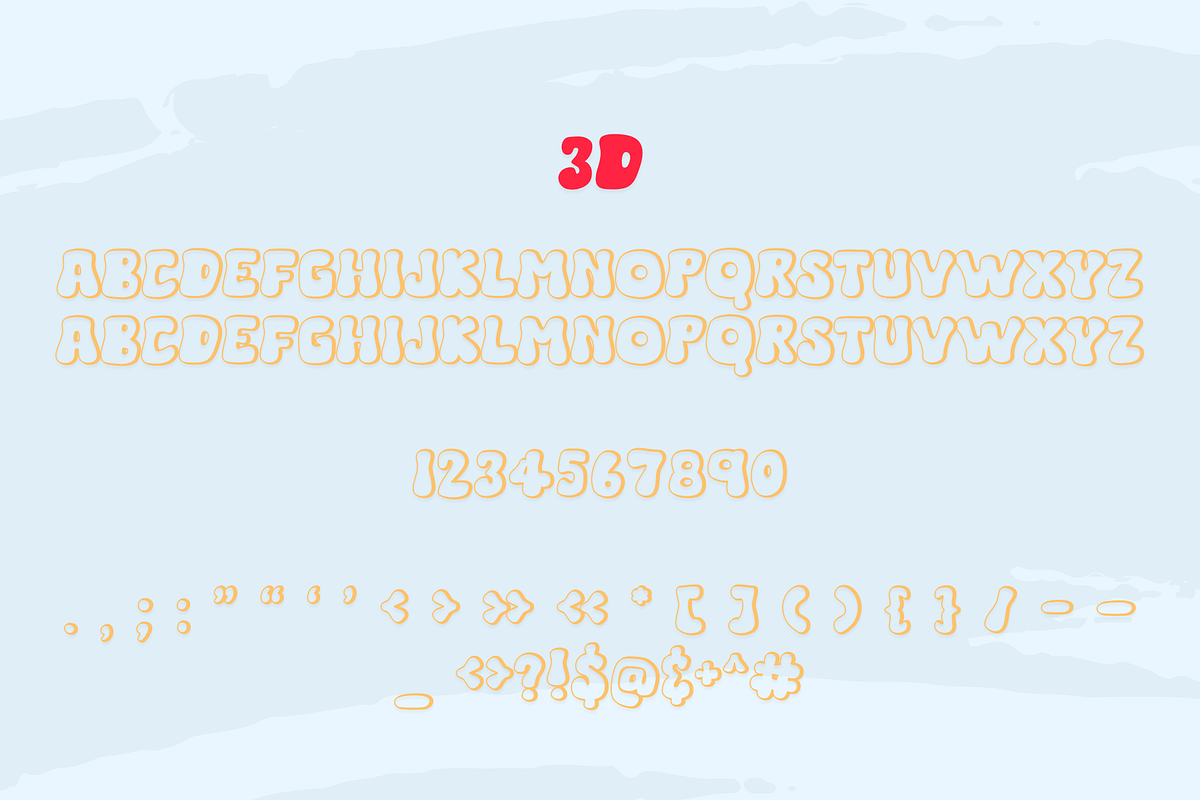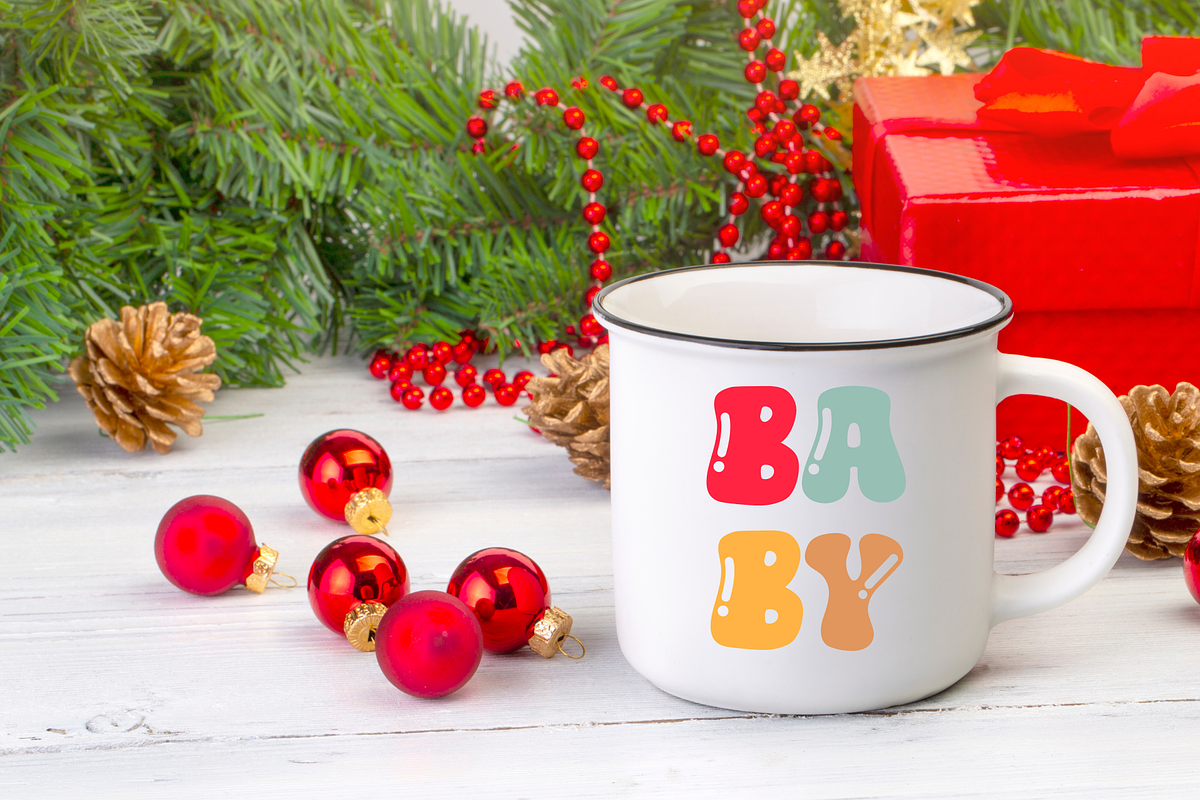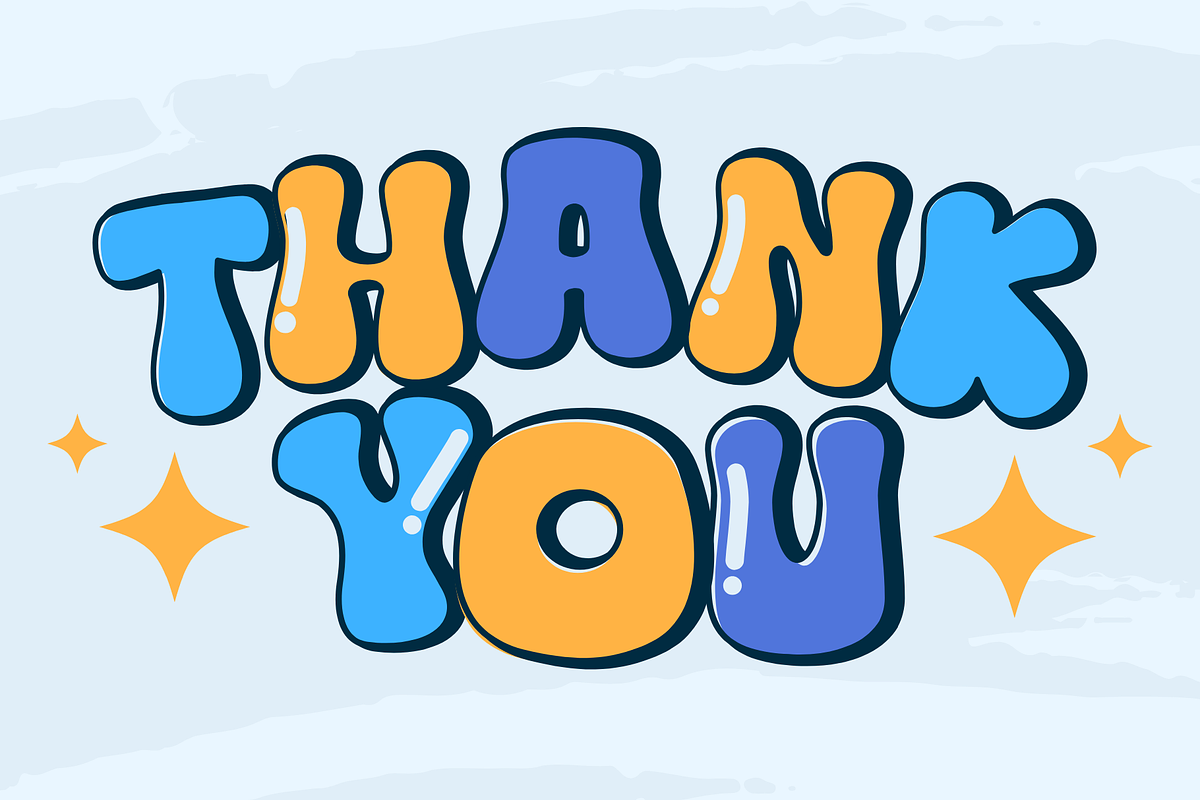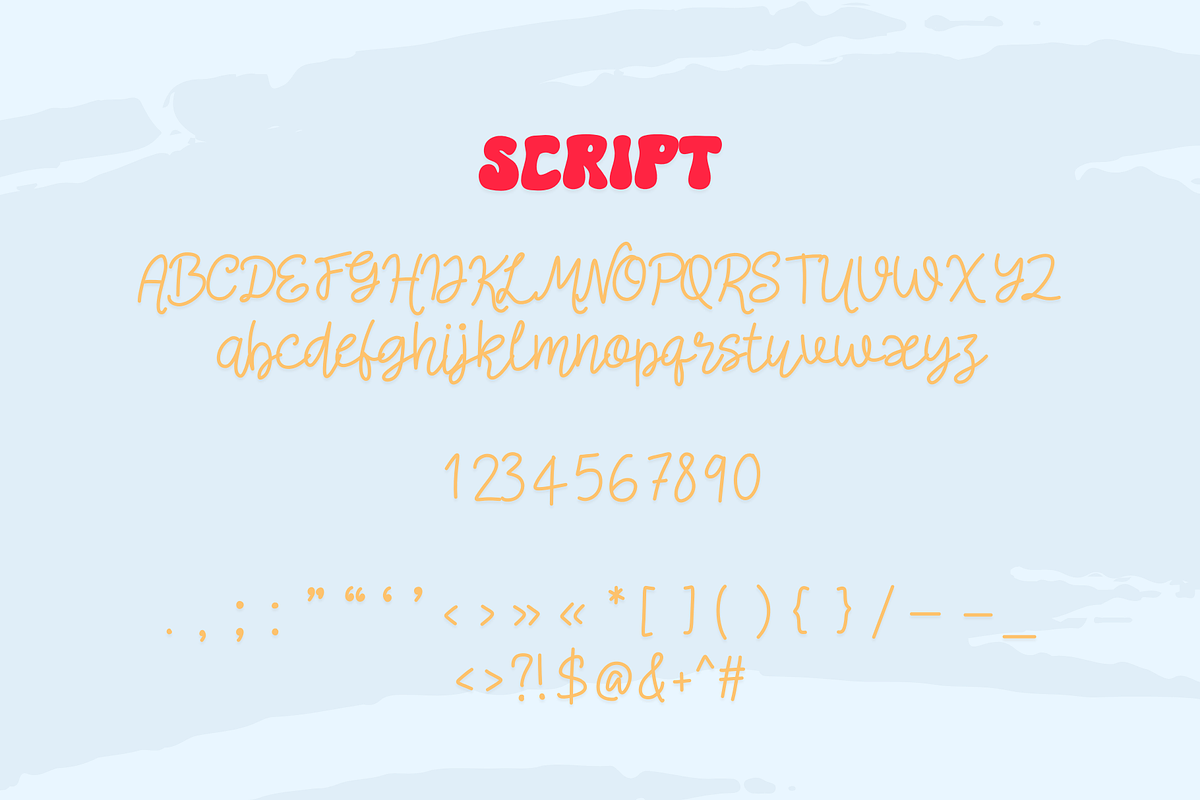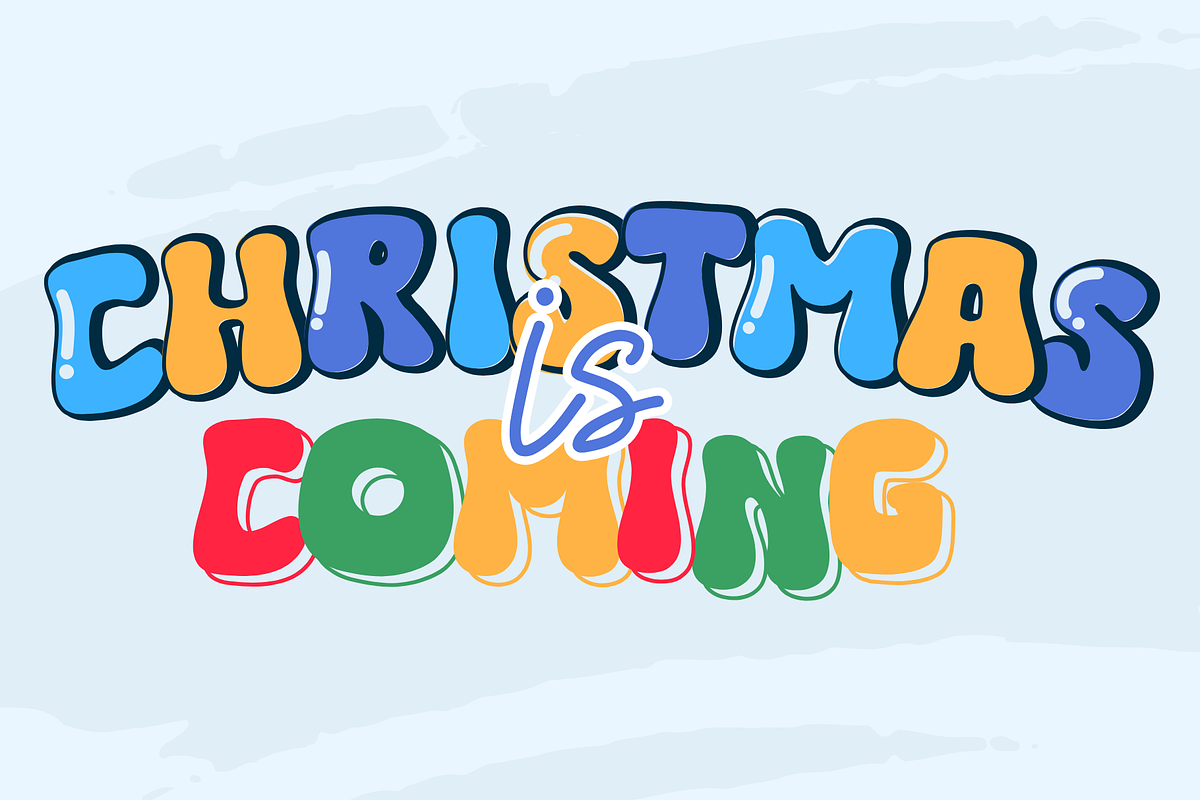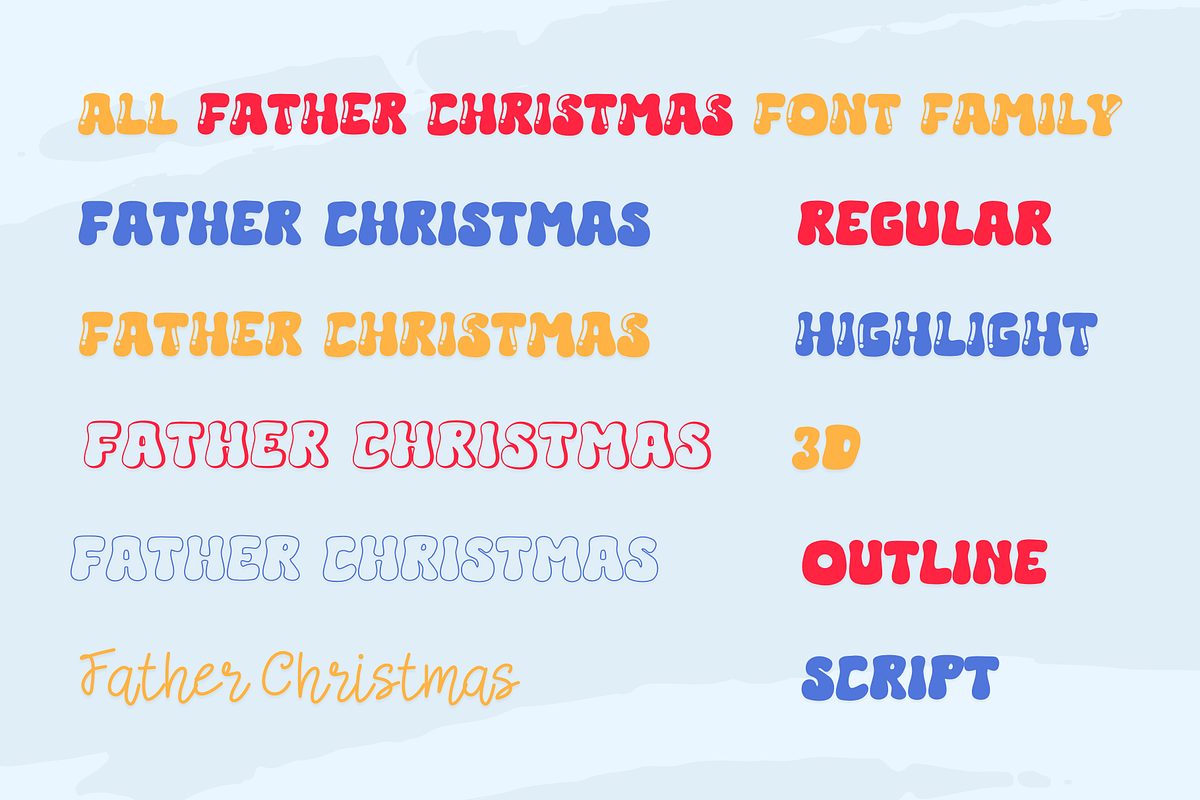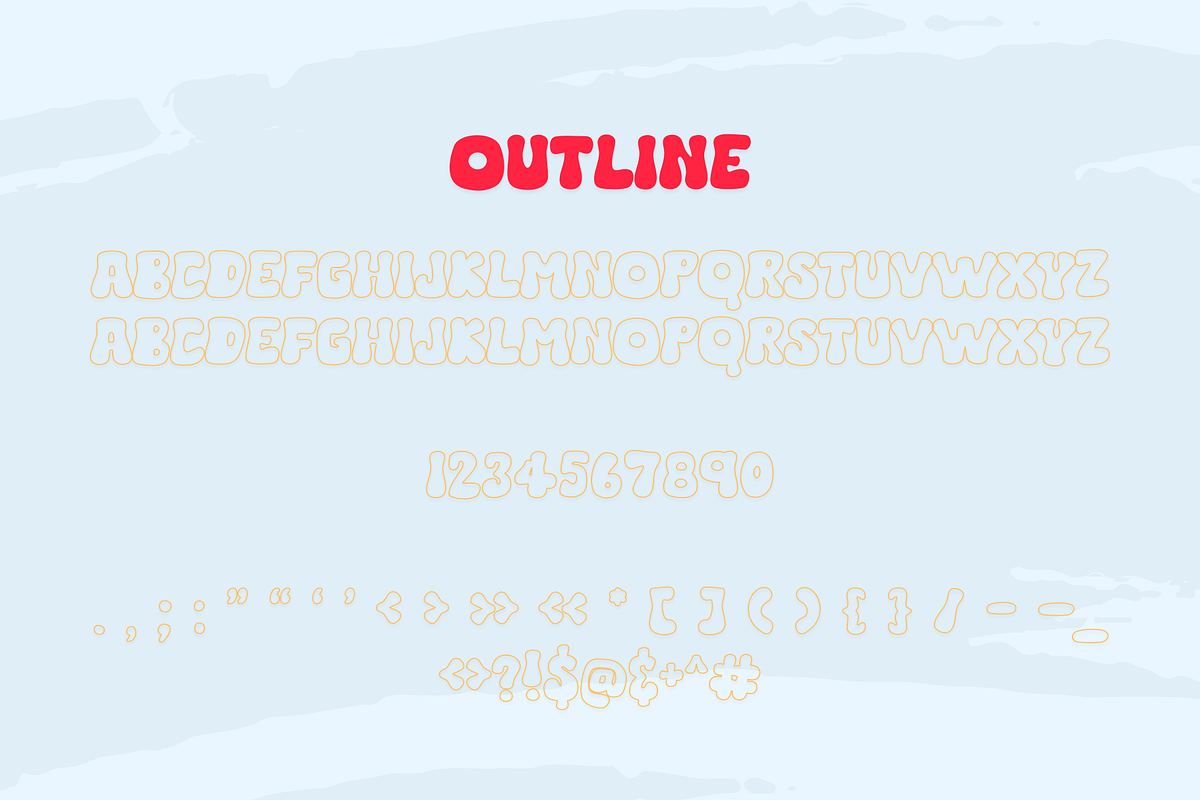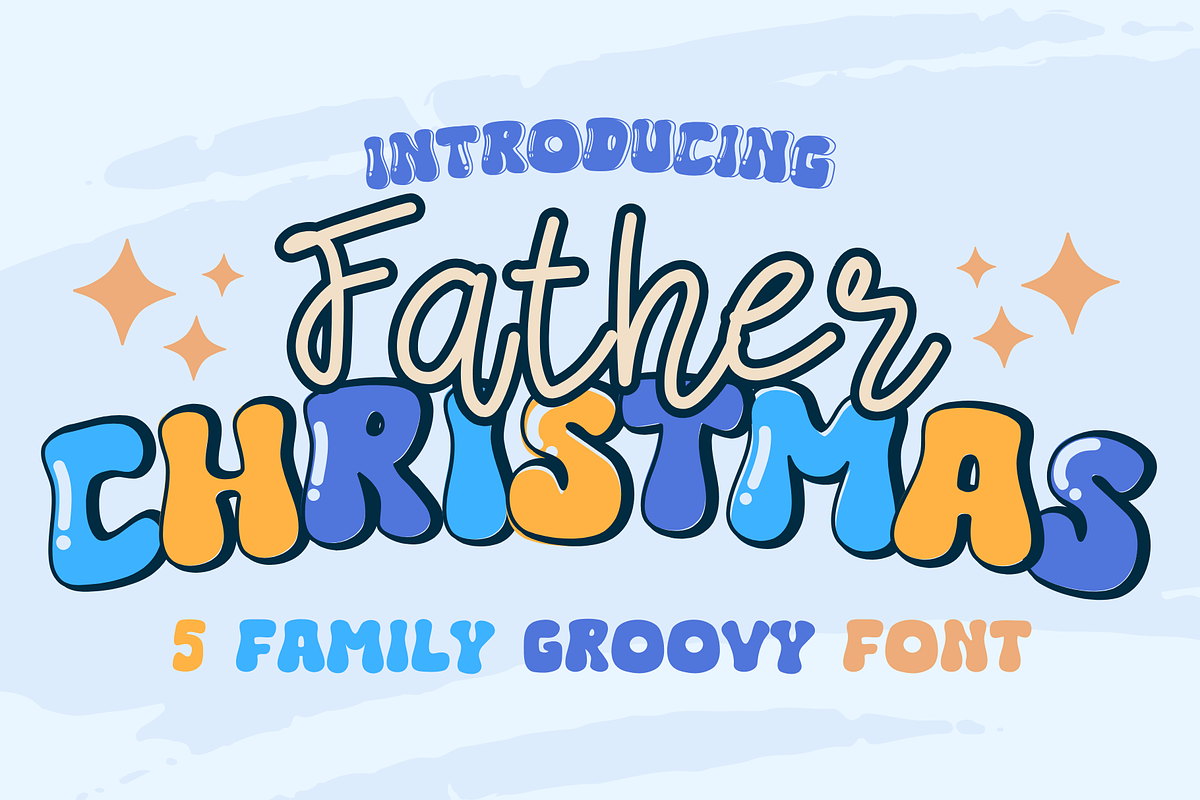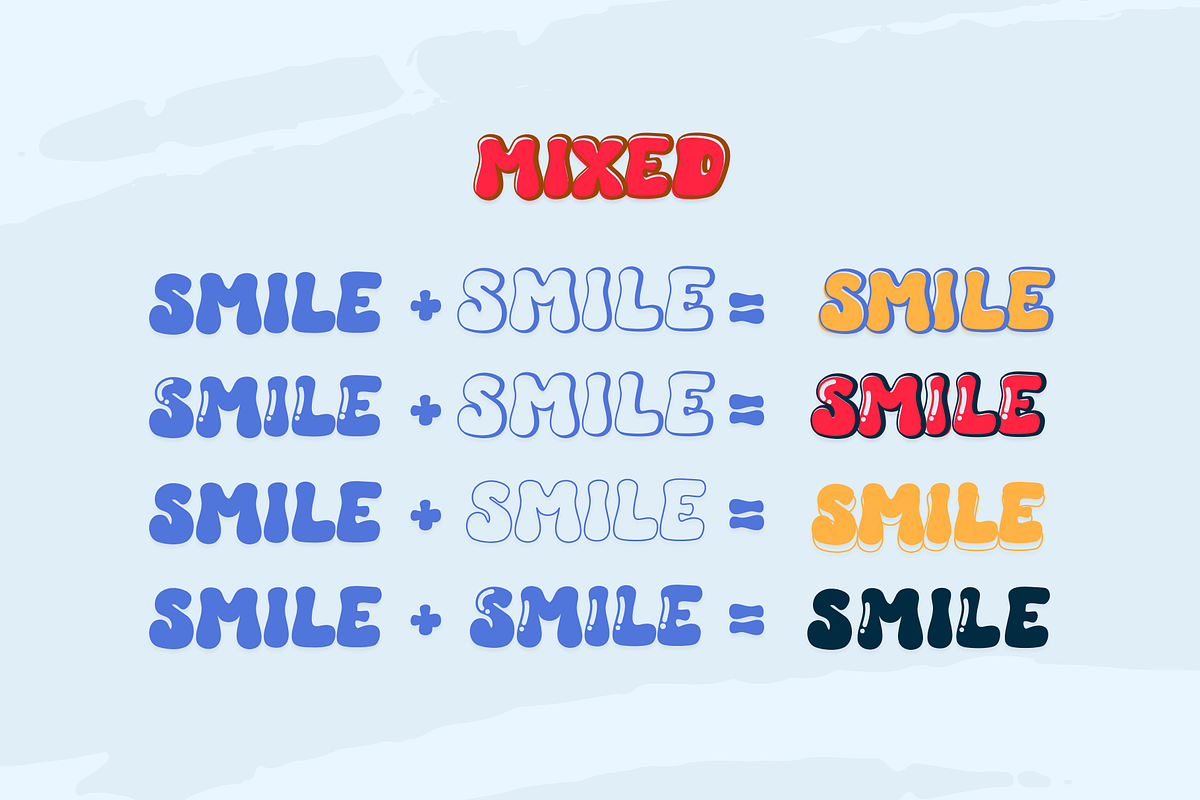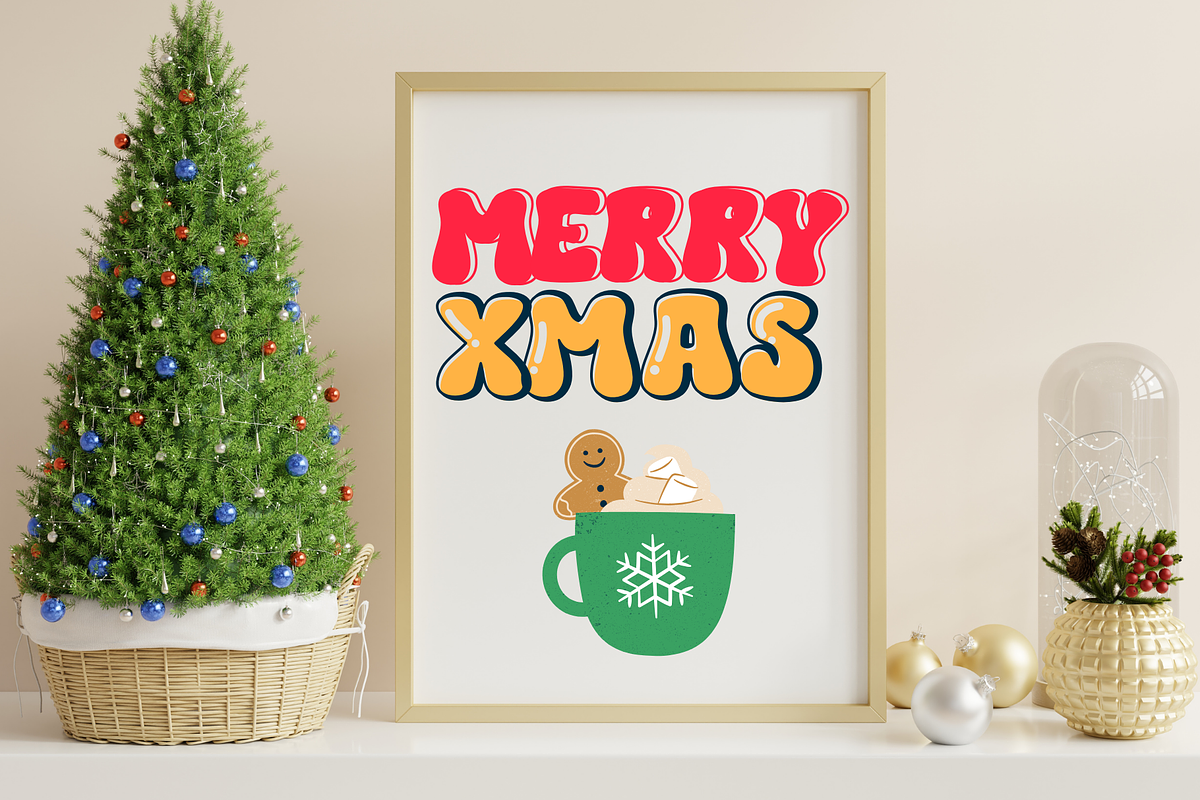
Father Christmas is a groovy font
Father Christmas is a retro groovy display font. It embodies playfulness and authenticity and is the perfect choice for all your favorite projects such as blog posts, logos, branding, ads, invitations, greeting cards, planners, photo albums, decorations, and more. Add it to any of your designs, and enjoy the results!